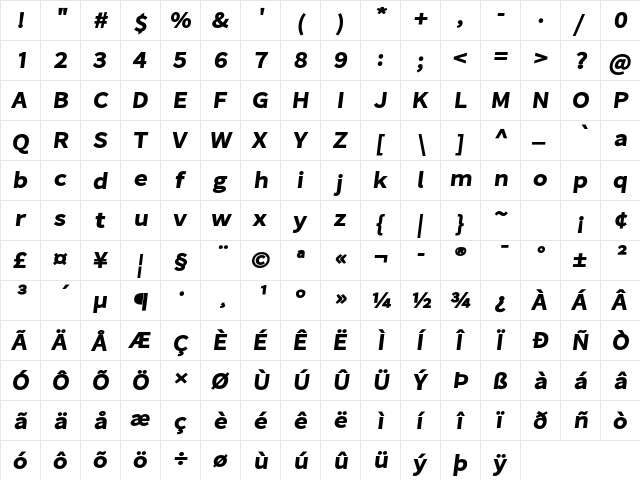
Falling Sky ExBdObl
| Designer | Paul D. Hunt |
Design Context for Falling Sky Typeface
Falling Sky is a composed and adaptable typeface that performs quietly and consistently across a wide range of design contexts. Its bold stroke weight gives it real presence on the page.
Pro Tip: Pair Falling Sky with a font of contrasting weight or personality to build a more expressive typographic hierarchy.